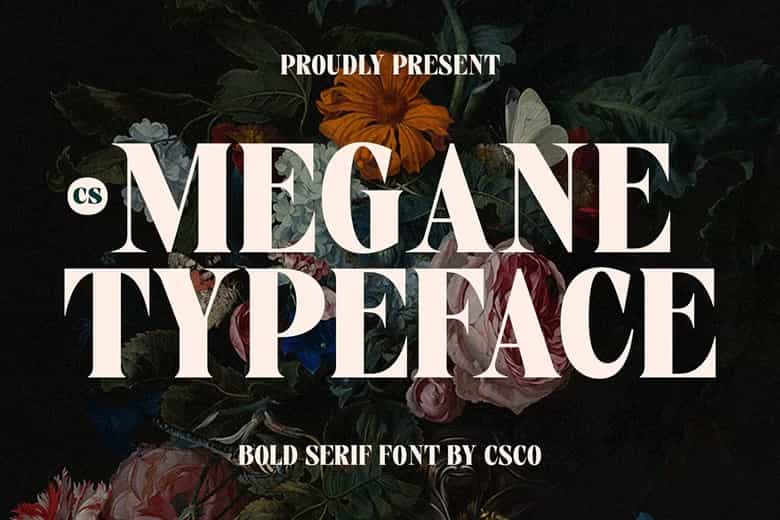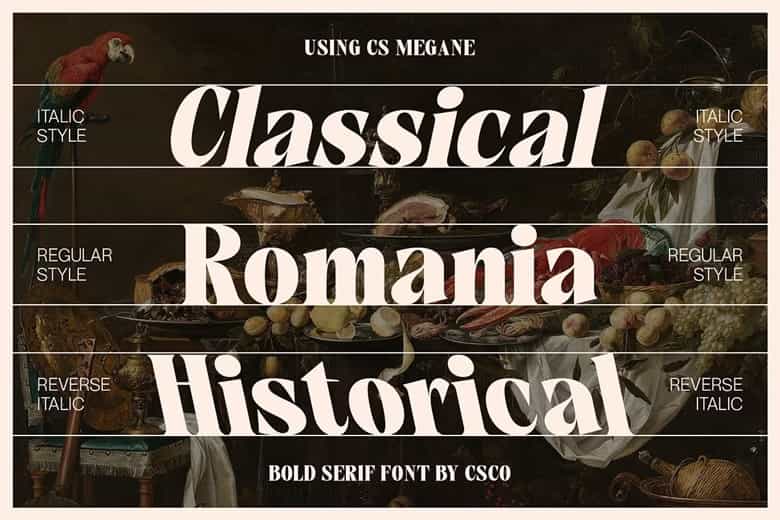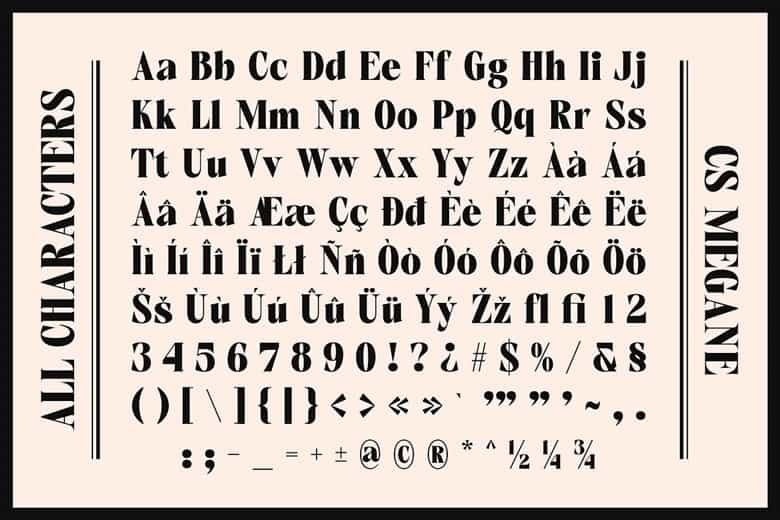
The CS Megane is a modern serif font that combines traditional luxury and contemporary boldness. Its confident and refined letterforms make for an ideal pick on high end branding, refined typography, and impactful visual communication. Its assertive presence has a strong presence, exuding traditional elegance and contemporary strength, perfect for producing lasting, yet fresh designs.